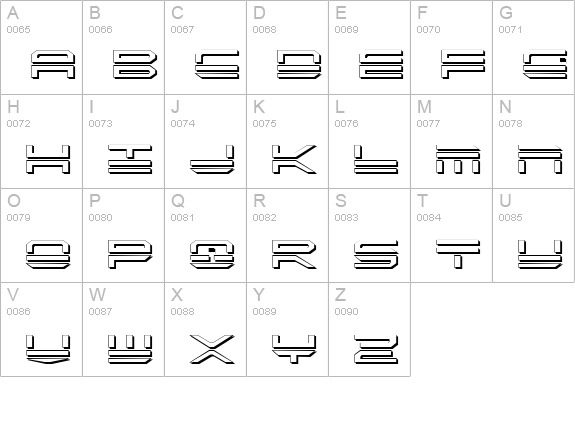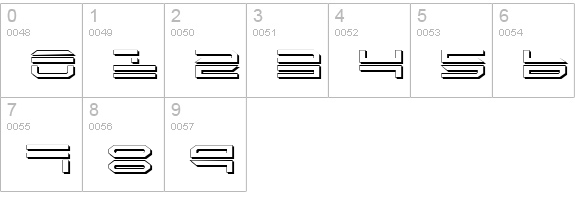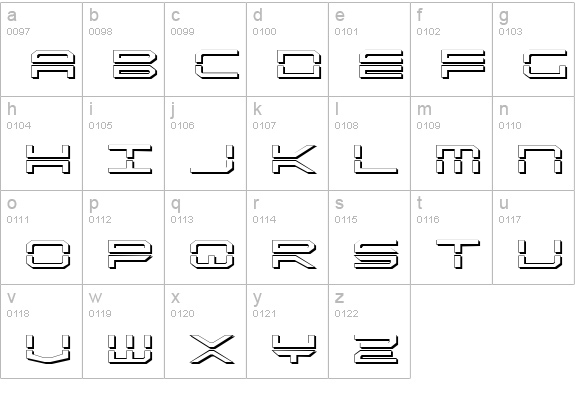
QuickStrike Shadow Font Details
Introducing QuickStrike Shadow, a bold and dynamic font that will add a striking edge to any design project. This eye-catching typeface is perfect for those looking to make a bold statement and leave a lasting impression. QuickStrike Shadow boasts a unique combination of sharp angles and sleek curves, creating a captivating visual impact. Its strong and commanding presence makes it ideal for headlines, posters, logos, and more. Whether you're designing for a modern brand, a sports event, or a high-energy campaign, QuickStrike Shadow is sure to deliver. One of the best things about QuickStrike Shadow is that it is freely available to download at FontsMarket.com. This means you can easily incorporate this powerful font into your projects without breaking the bank. Its accessibility makes it a popular choice among designers who want to create stunning visuals without compromising on quality. With QuickStrike Shadow, you can effortlessly achieve a professional and polished look. The font's clean lines and well-defined shapes ensure legibility even at smaller sizes, making it versatile for both digital and print media. Its bold nature also allows for effective layering and experimentation, giving you endless possibilities to explore and create unique designs. Whether you're a seasoned designer or just starting out, QuickStrike Shadow is a must-have addition to your font library. Its versatility, modern aesthetic, and the fact that it's free to download make it a valuable asset for any creative project. So why wait? Head over to FontsMarket.com and unleash the power of QuickStrike Shadow today!